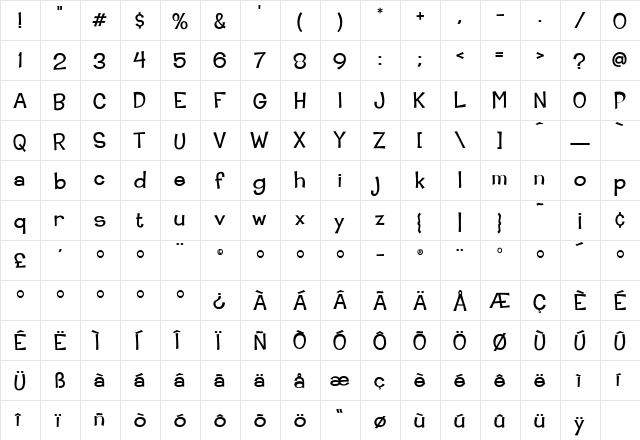
CoopLight Medium
Design Context for CoopLight Typeface
CoopLight takes a measured approach to typography — its balanced proportions and neutral character make it a reliable workhorse for both digital and print work. Its slender proportions lend an understated elegance to any composition.